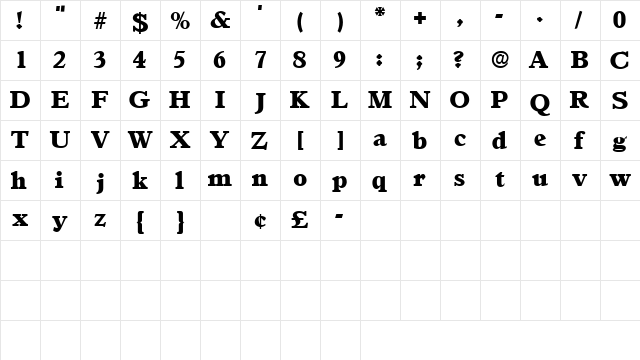
AgonicDisplaySSK Regular
Design Context for AgonicDisplaySSK Typeface
AgonicDisplaySSK brings ornamental detail and strong personality to headlines and identities, where visual impact matters more than quiet functionality.
Font Pairing: Pair with a clean neutral sans-serif for body copy to let AgonicDisplaySSK's character lead without overwhelming the composition.
Pro Tip: Treat AgonicDisplaySSK as the centrepiece of your typographic hierarchy. One strong heading set in a decorative face can carry an entire layout.